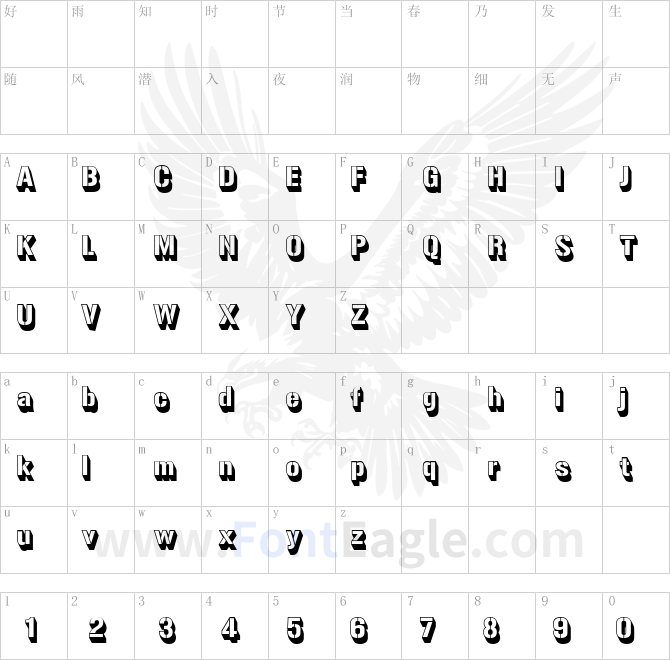
- Font name:Gunplay 3D
- Font Subfamily ID:RayLarabie: Gunplay 3D: 2000
- Font Full Name:Gunplay 3D
- Font Version:Version 2.000 2004
- Postscript:Gunplay3D